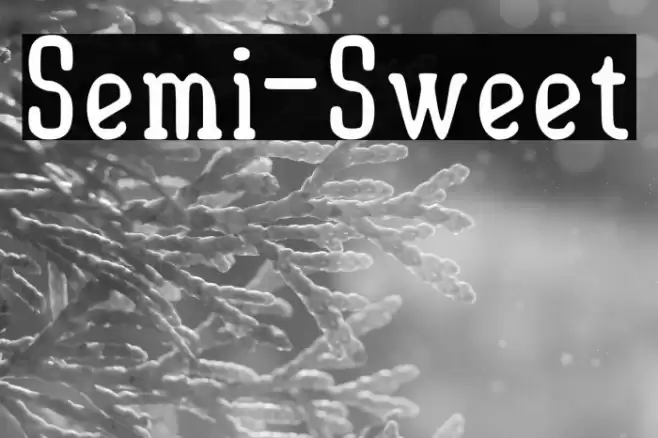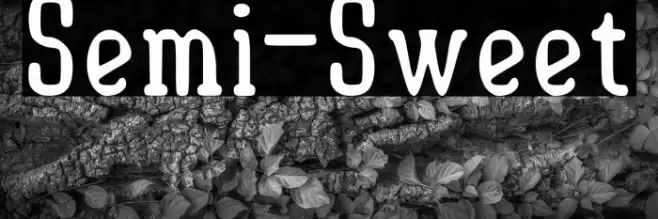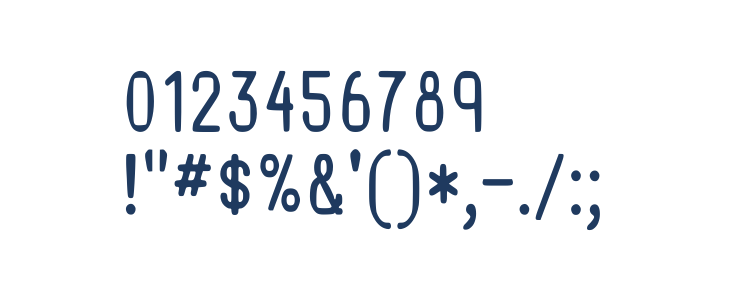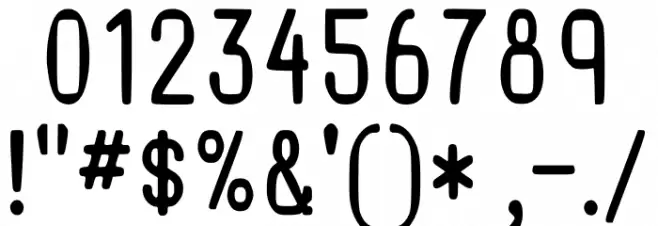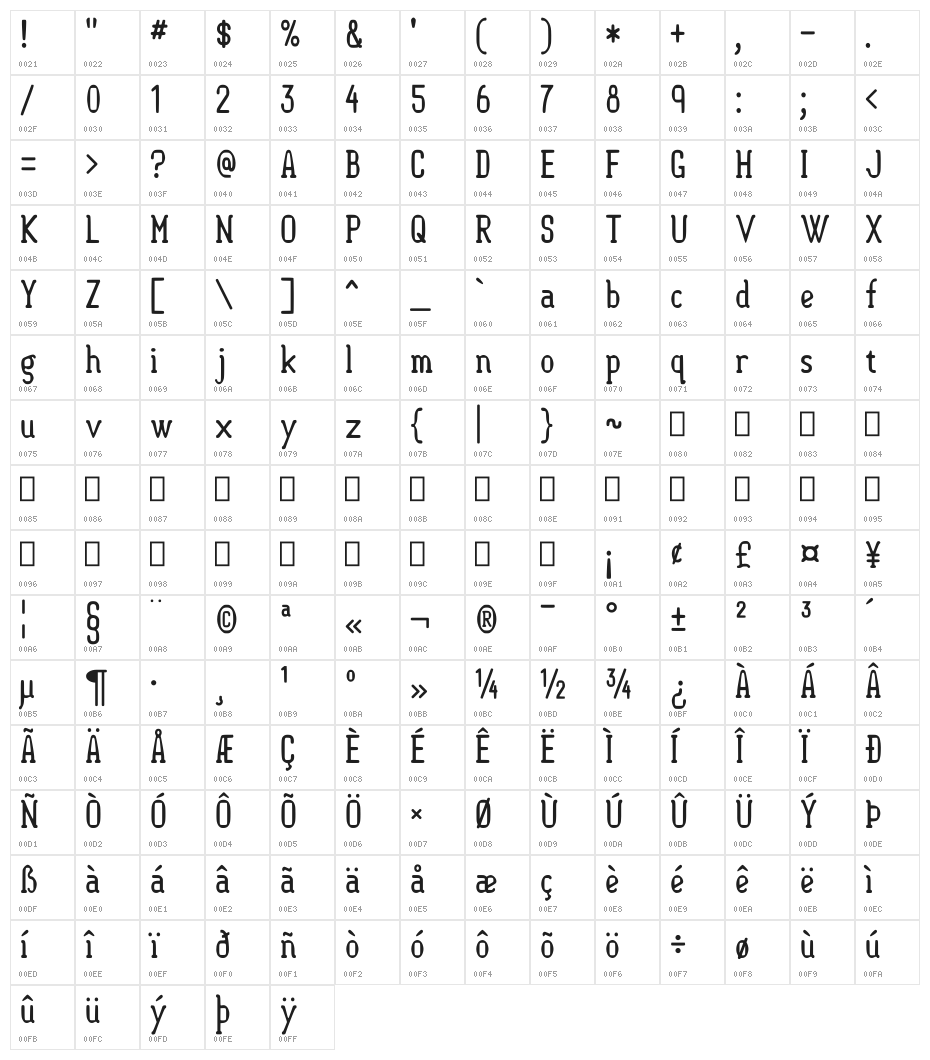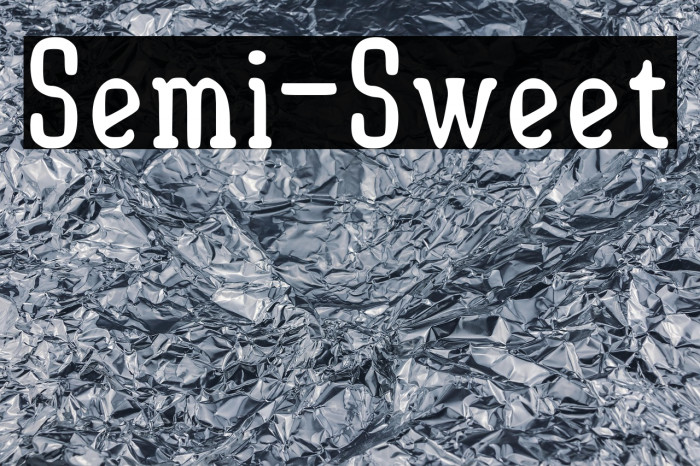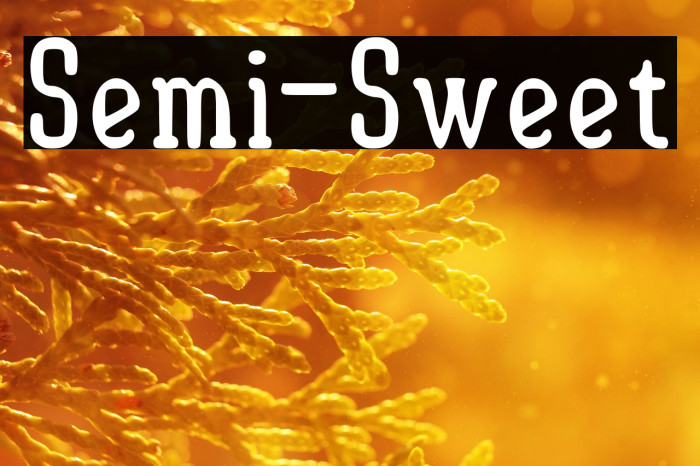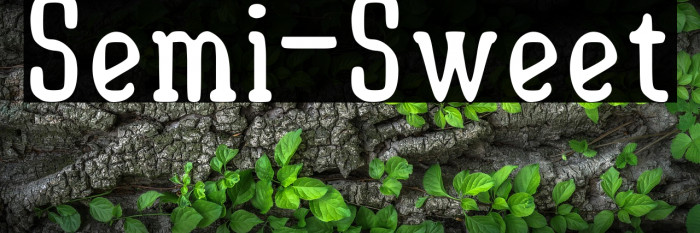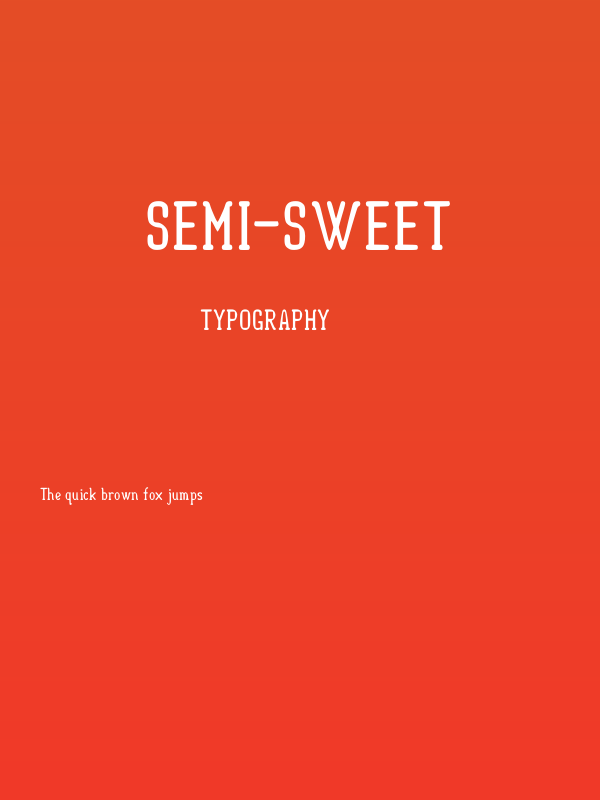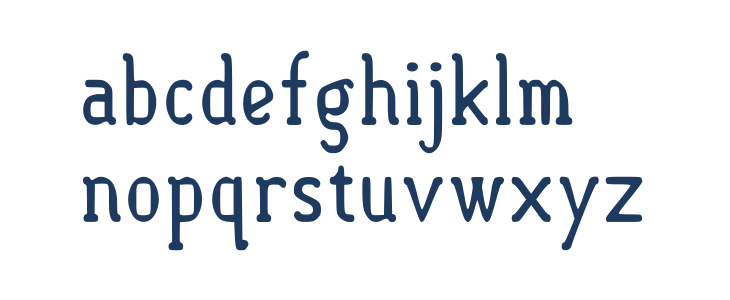
Semi-Sweet Font
Semi-Sweet Description
This font features a playful and slightly whimsical design, characterized by its rounded edges and subtle curves. The uppercase letters maintain a consistent height with a slight variation in width, giving them a friendly and approachable appearance. The lowercase letters exhibit a similar style, with some characters like 'g' and 'y' having distinctive loops that add to the font's charm. The numerals are clear and easy to read, with a uniform thickness that complements the overall design. Special characters are well-integrated, maintaining the font's cohesive look. This font is versatile, suitable for both casual and professional settings, and can add a touch of personality to any project.
A playful, rounded font with subtle curves and a friendly appearance from Uncategorized fonts.
- Proposed Projects: Ideal for children's books, greeting cards, branding for playful products, and casual invitations.
- Overall Style: Playful
- Use Case: Headlines, Logos, Invitations